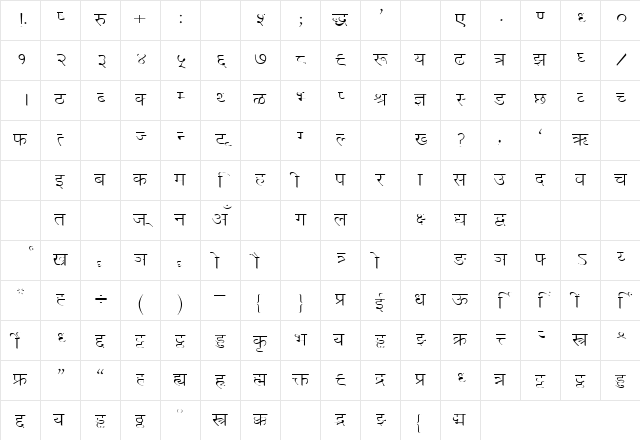
Complete DEV007 Normal glyph index. Displaying only characters natively supported by DEV007 Normal font.
DEV007 is a composed and adaptable typeface that performs quietly and consistently across a wide range of design contexts.